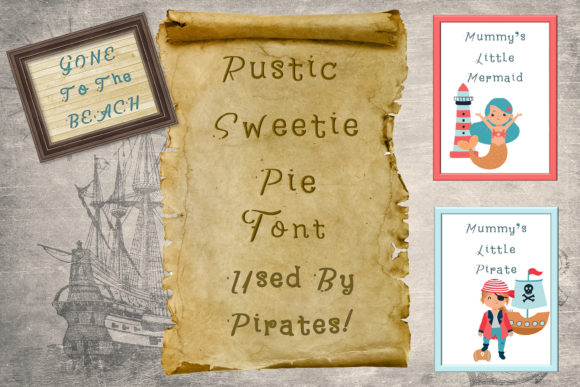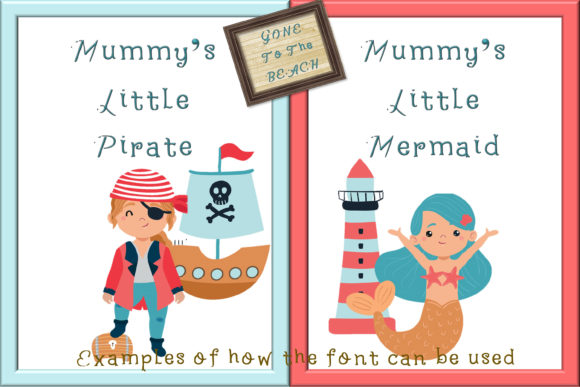
Rustic Sweetie Pie Font
About Rustic Sweetie Pie Font
This cute and quirky font is ideal for making children’s pictures, signs, teaching resources, nautical designs.